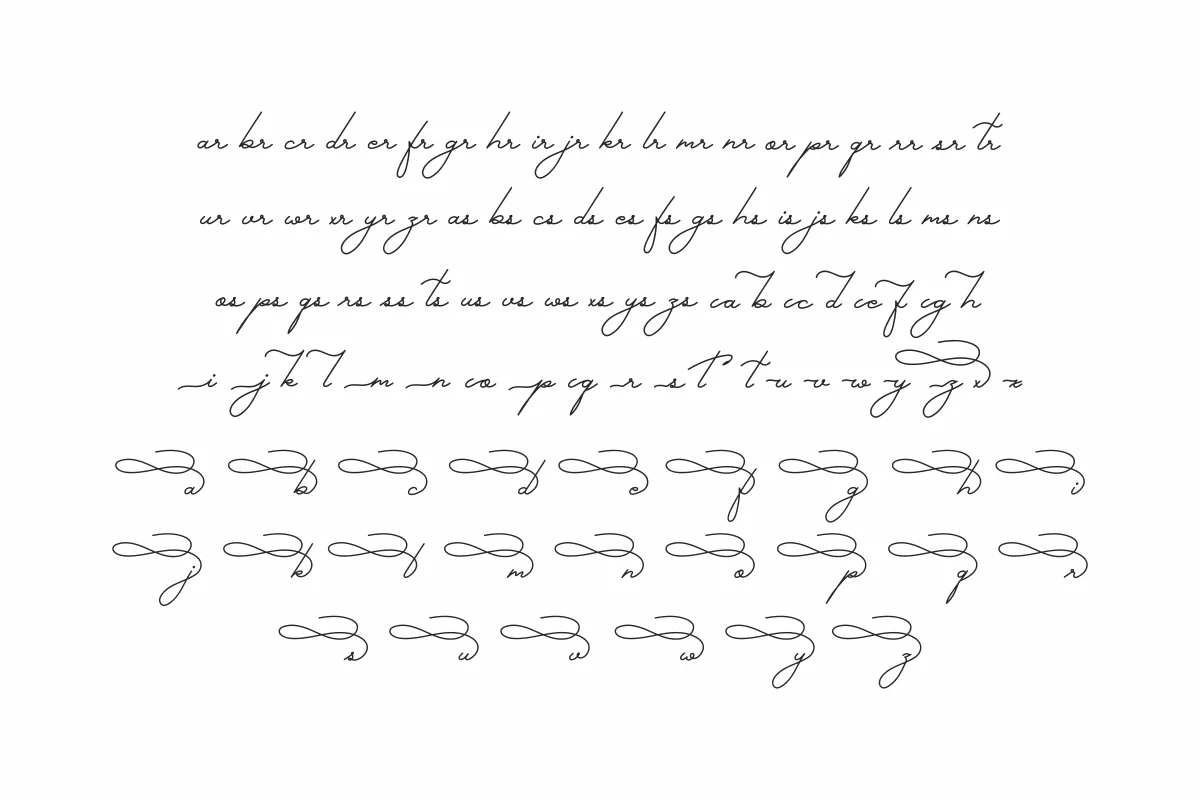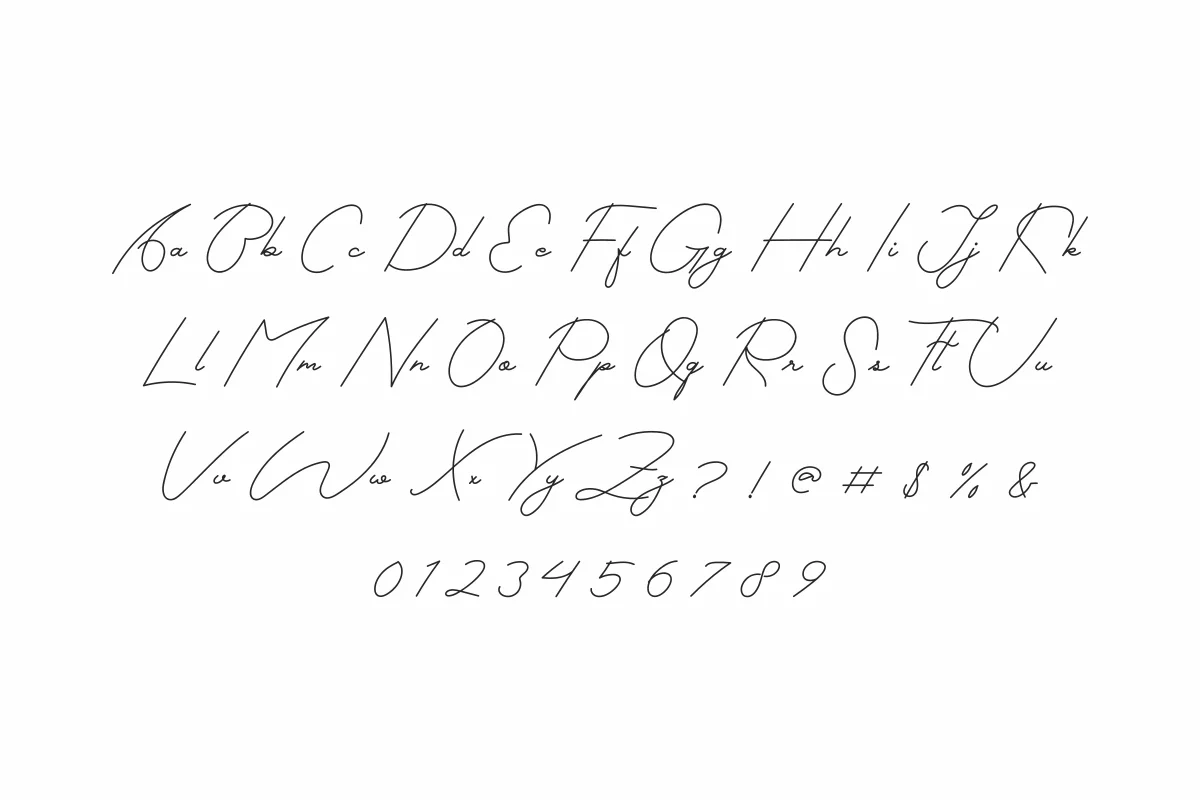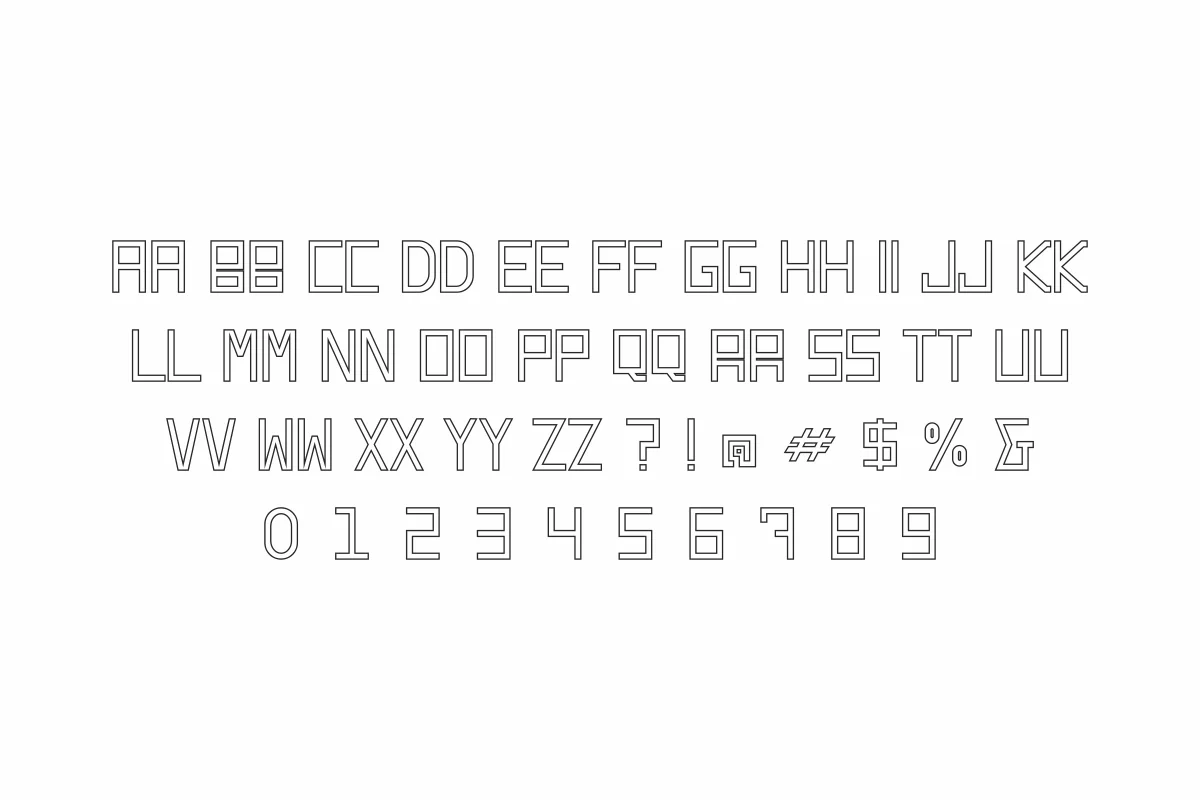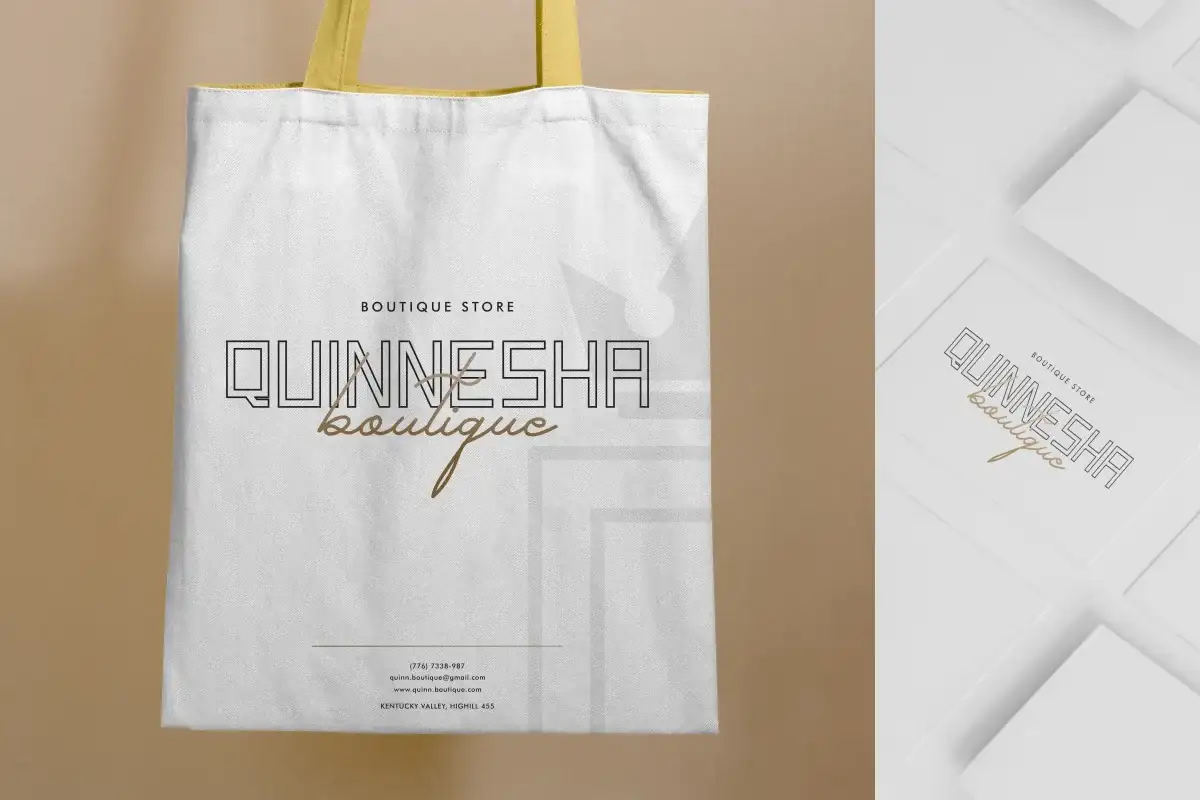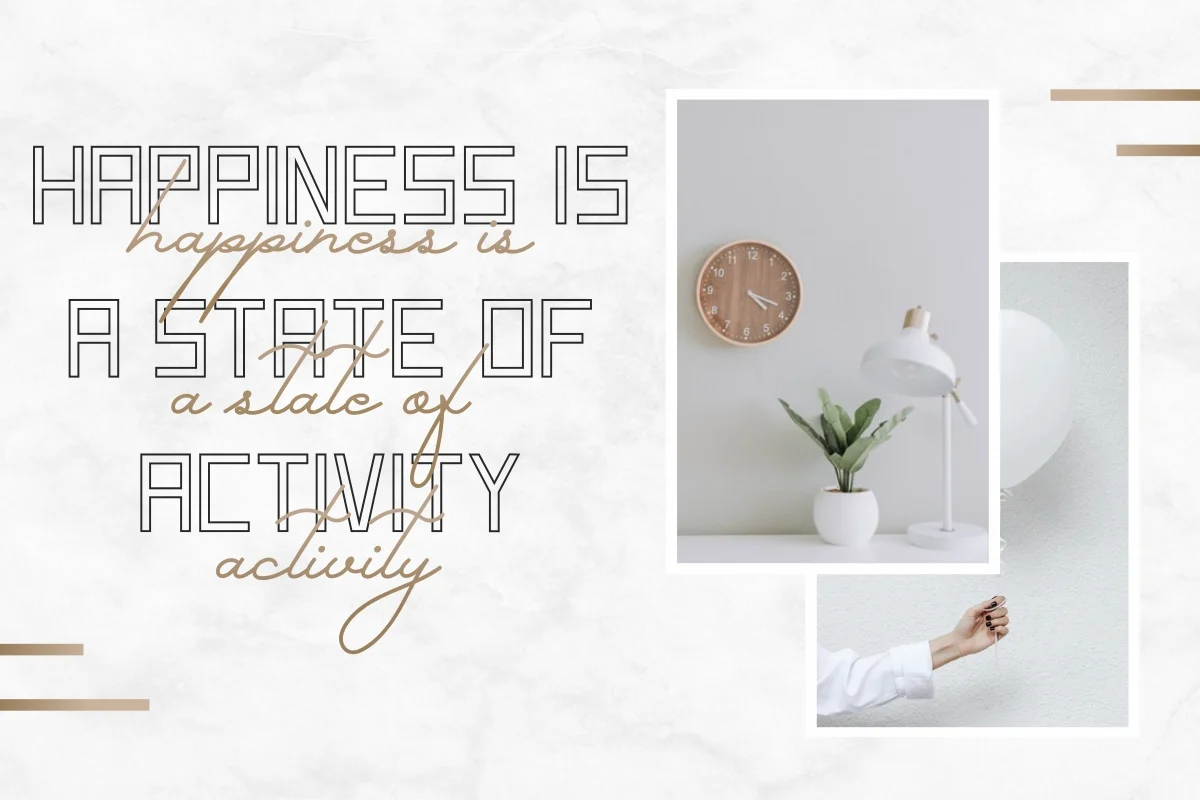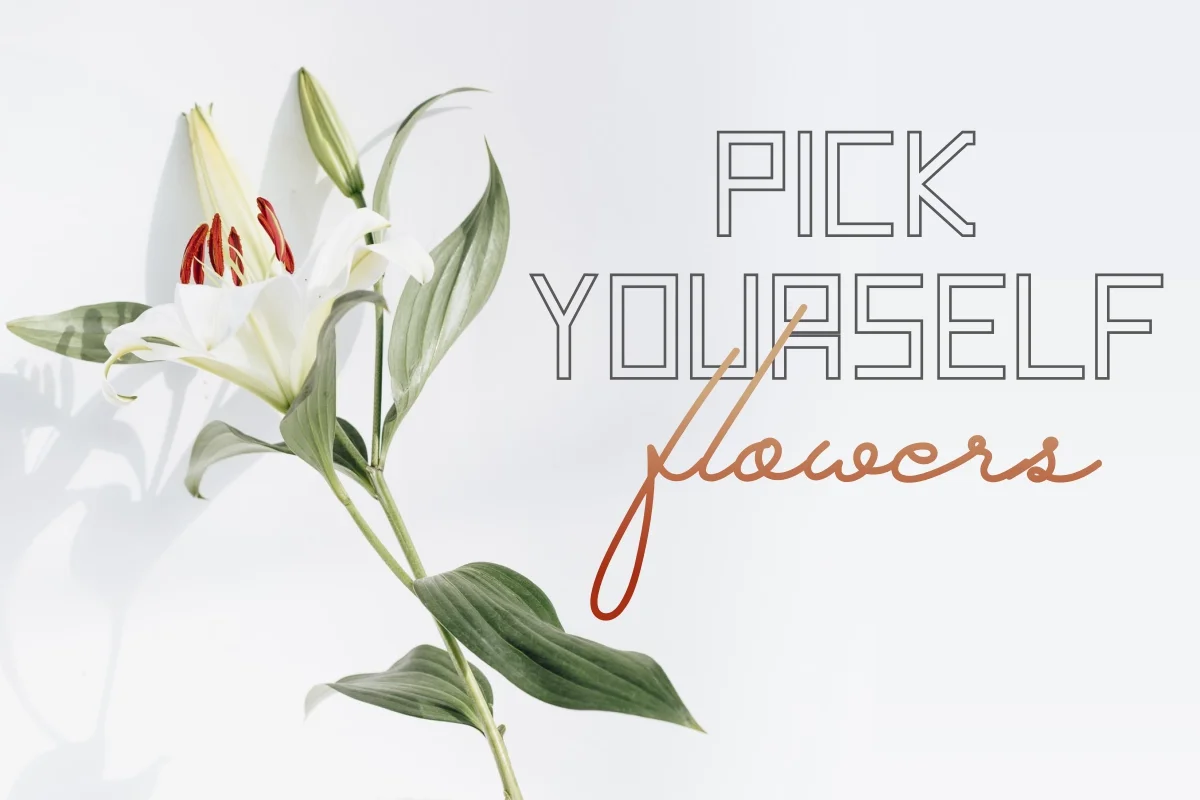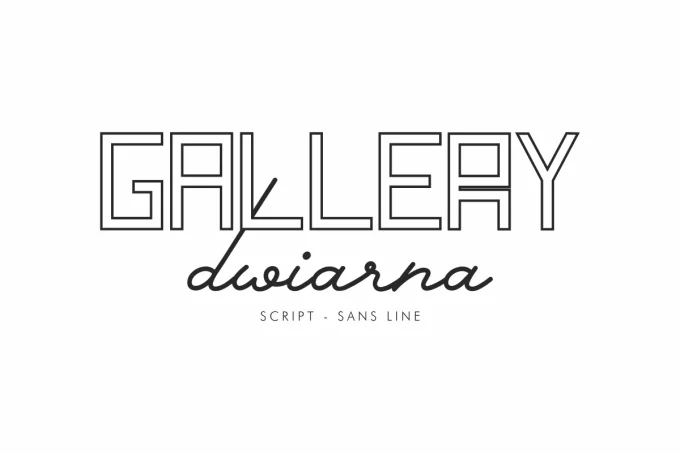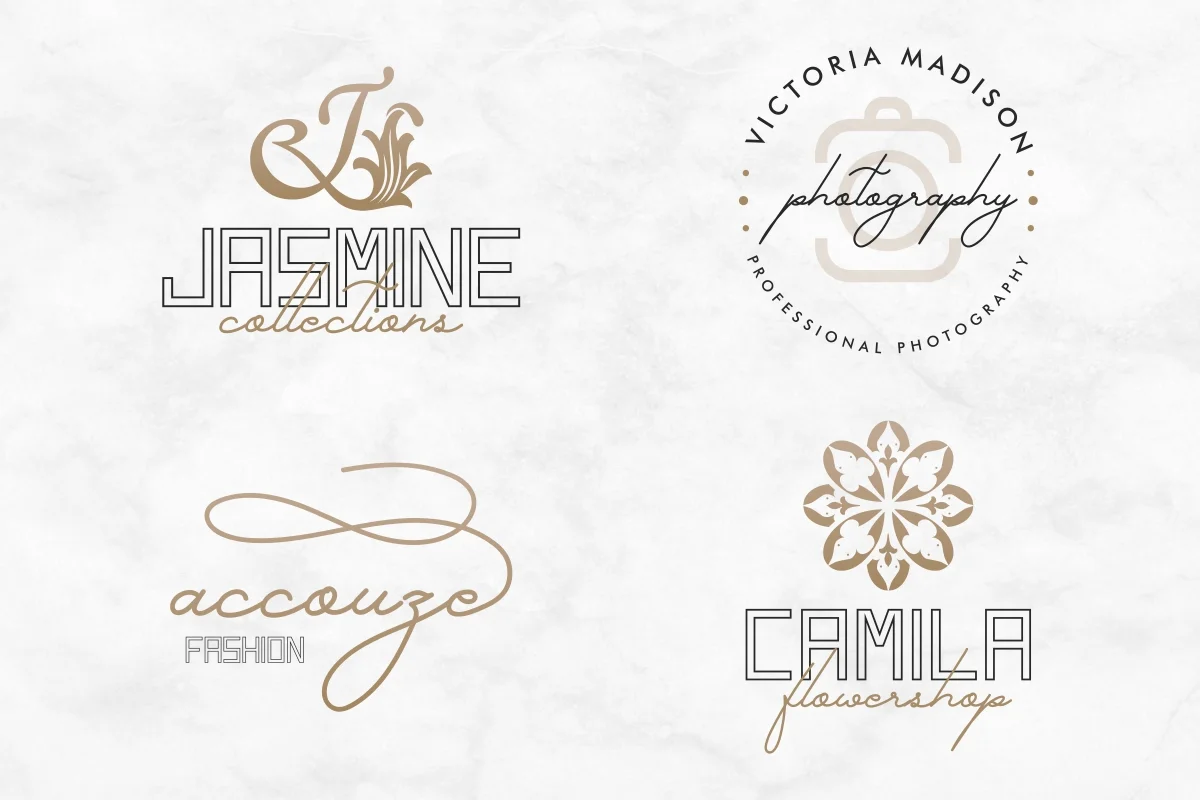
Gallery Dwiarna is a font family with two different styles. Originally designed and made by : Yasri and Suci. On the package you will get :
Handcrafted here in our Studio , Indonesia. Gallery Dwiarna will be great for any projects (require extended license) including : branding, logo, stationery, business card, signage, flyer, brochure etc.
The Gallery Dwiarna has 2 styles : Sans Line and Script (signature)